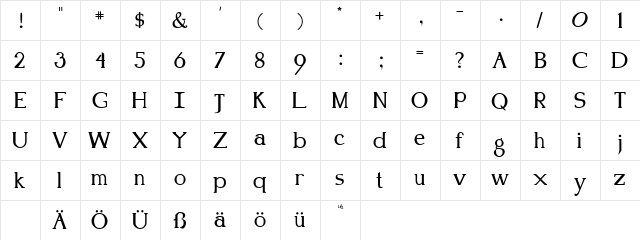
Kennon Normal
Design Context for Kennon Typeface
Kennon takes a measured approach to typography — its balanced proportions and neutral character make it a reliable workhorse for both digital and print work.
Pro Tip: Pair Kennon with a font of contrasting weight or personality to build a more expressive typographic hierarchy.